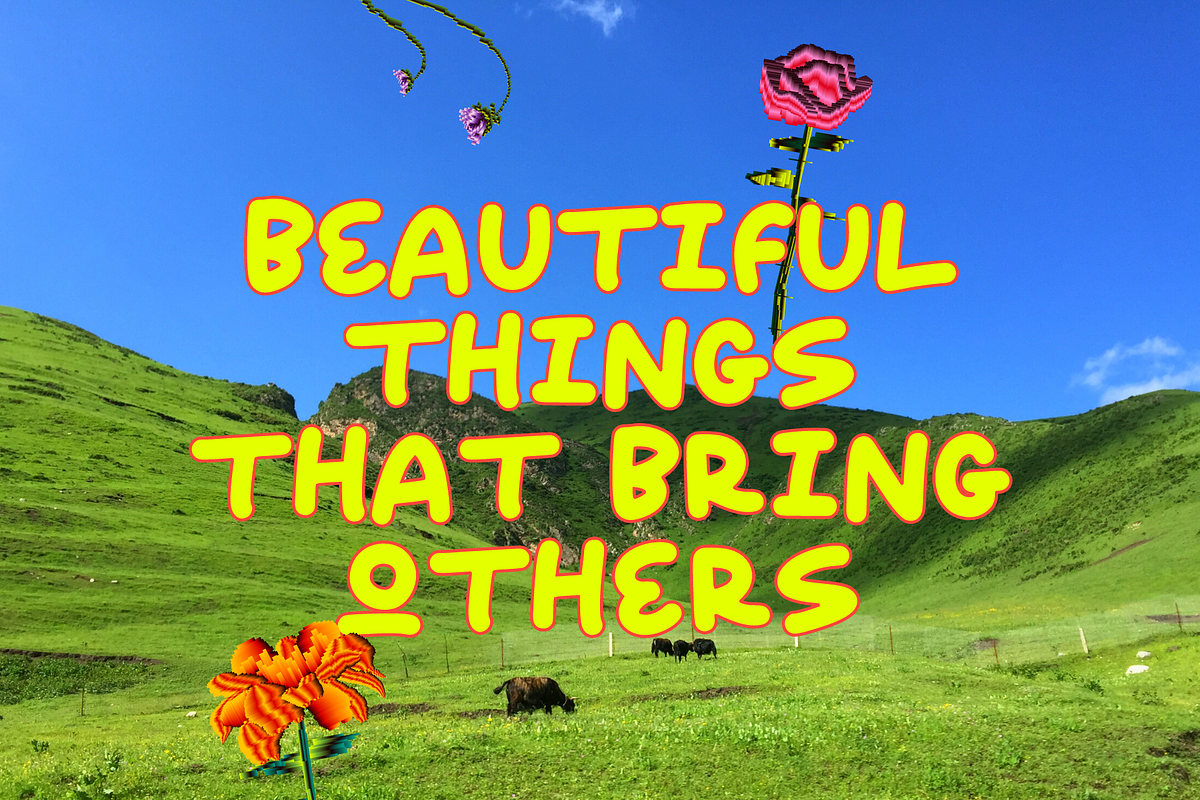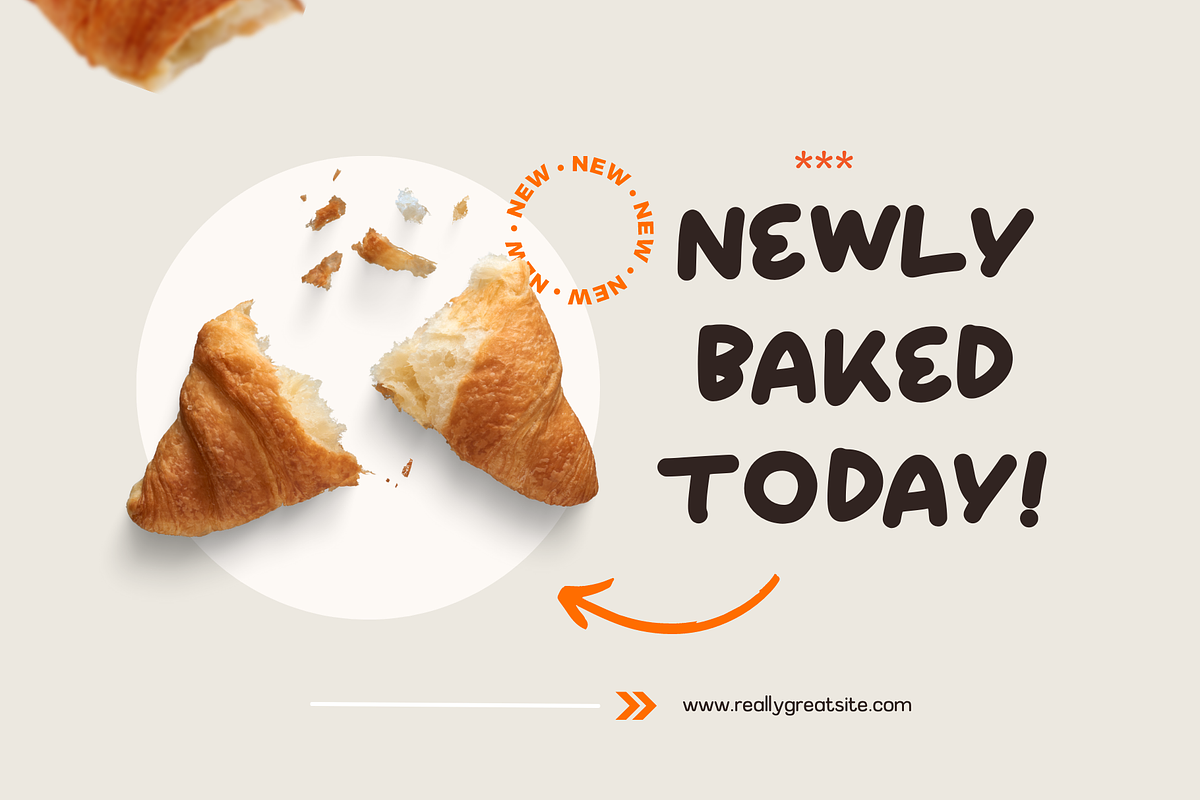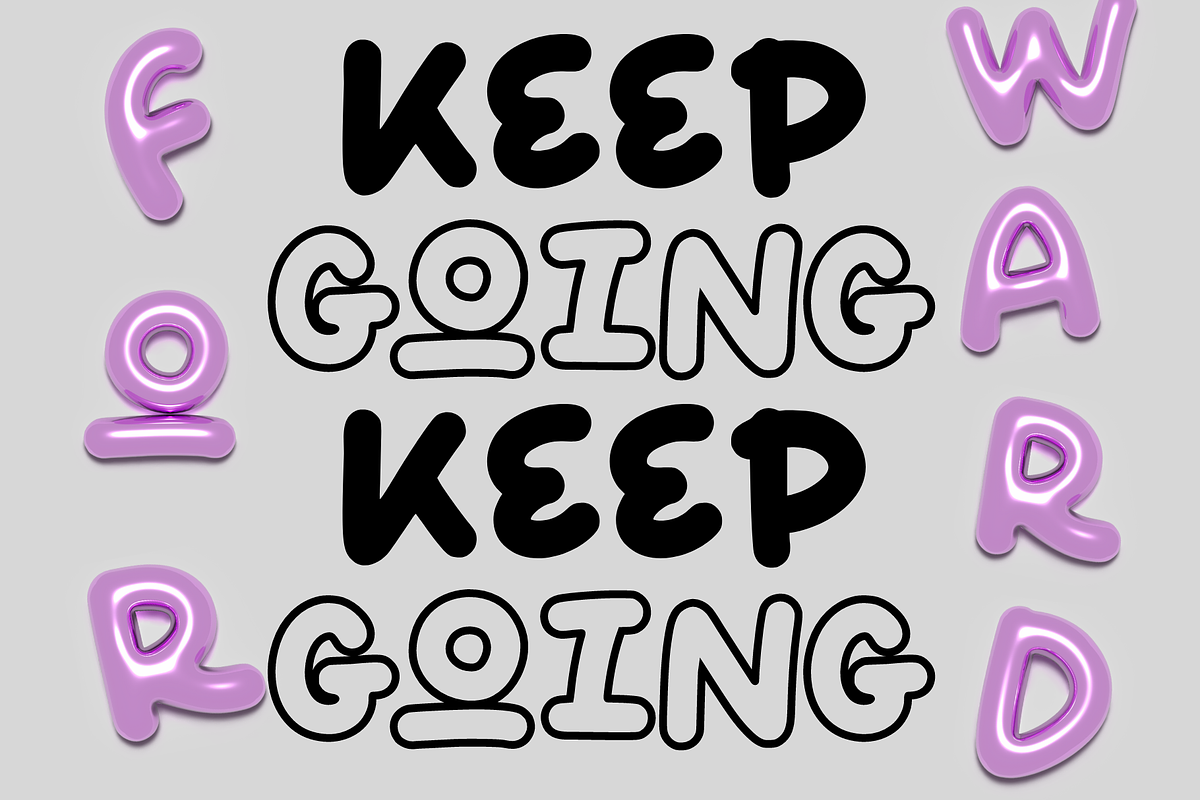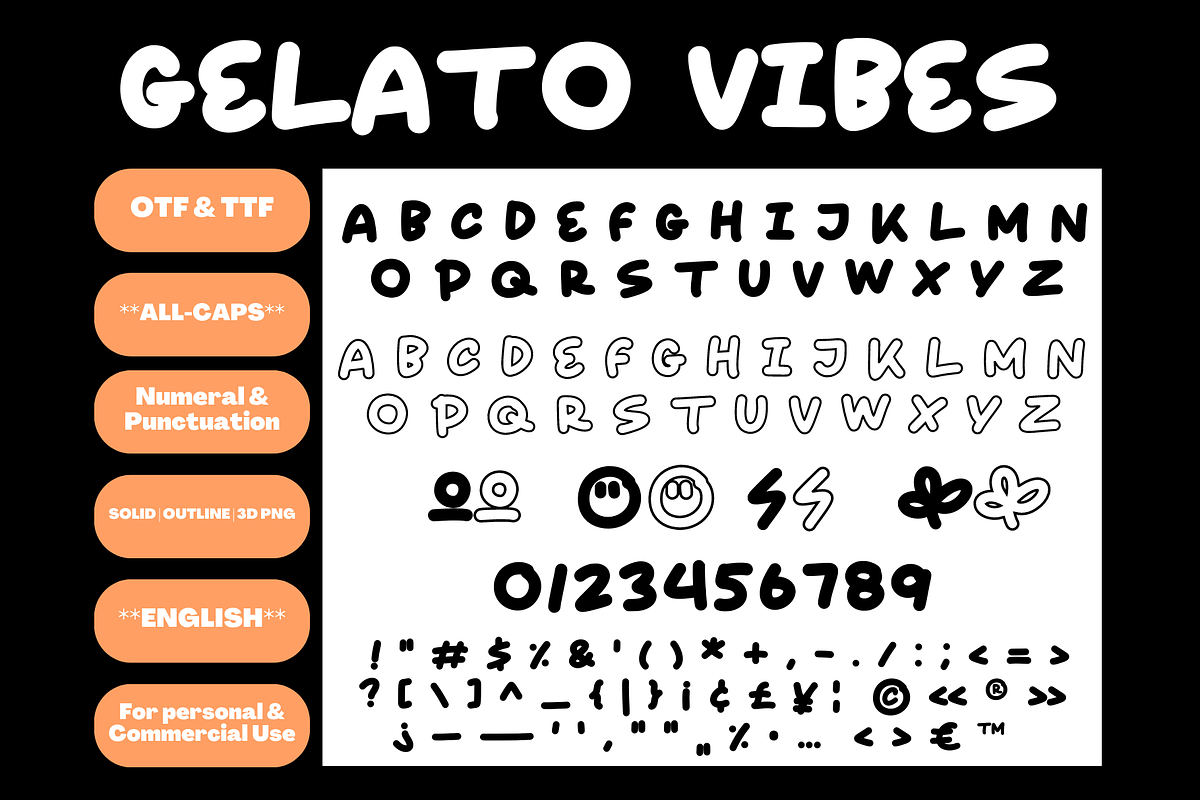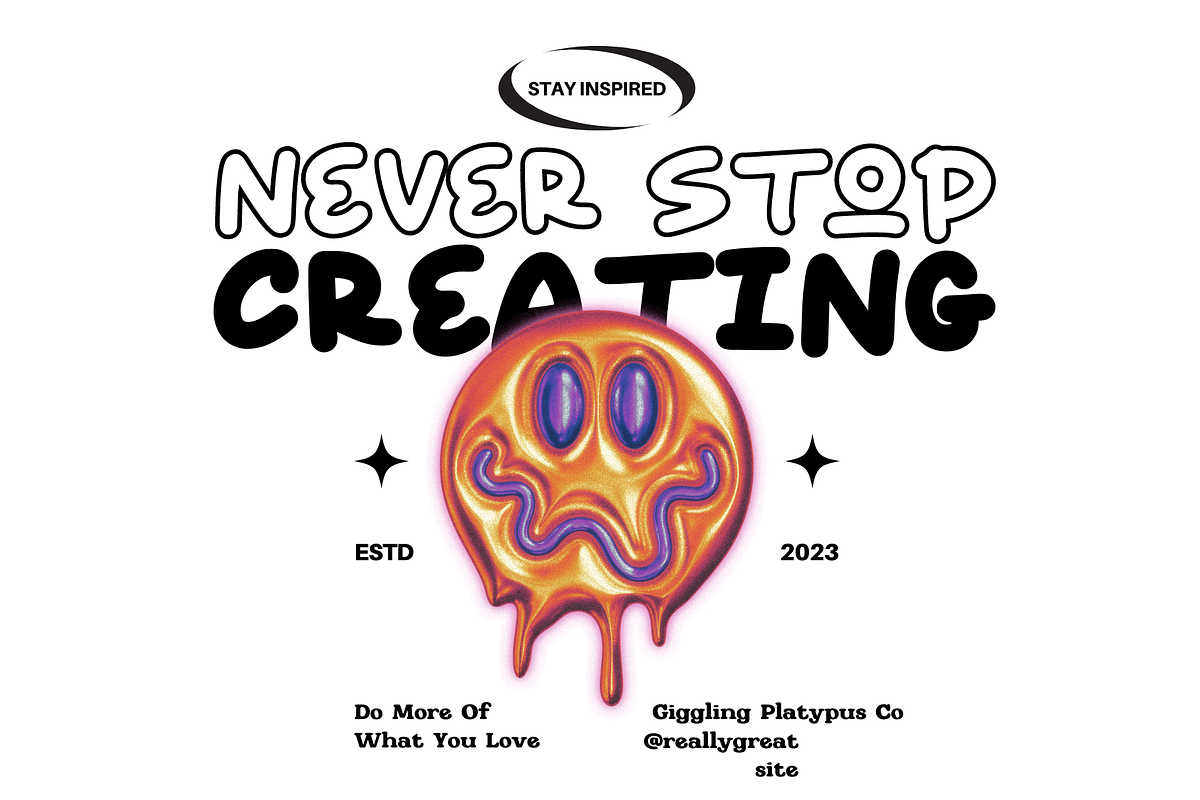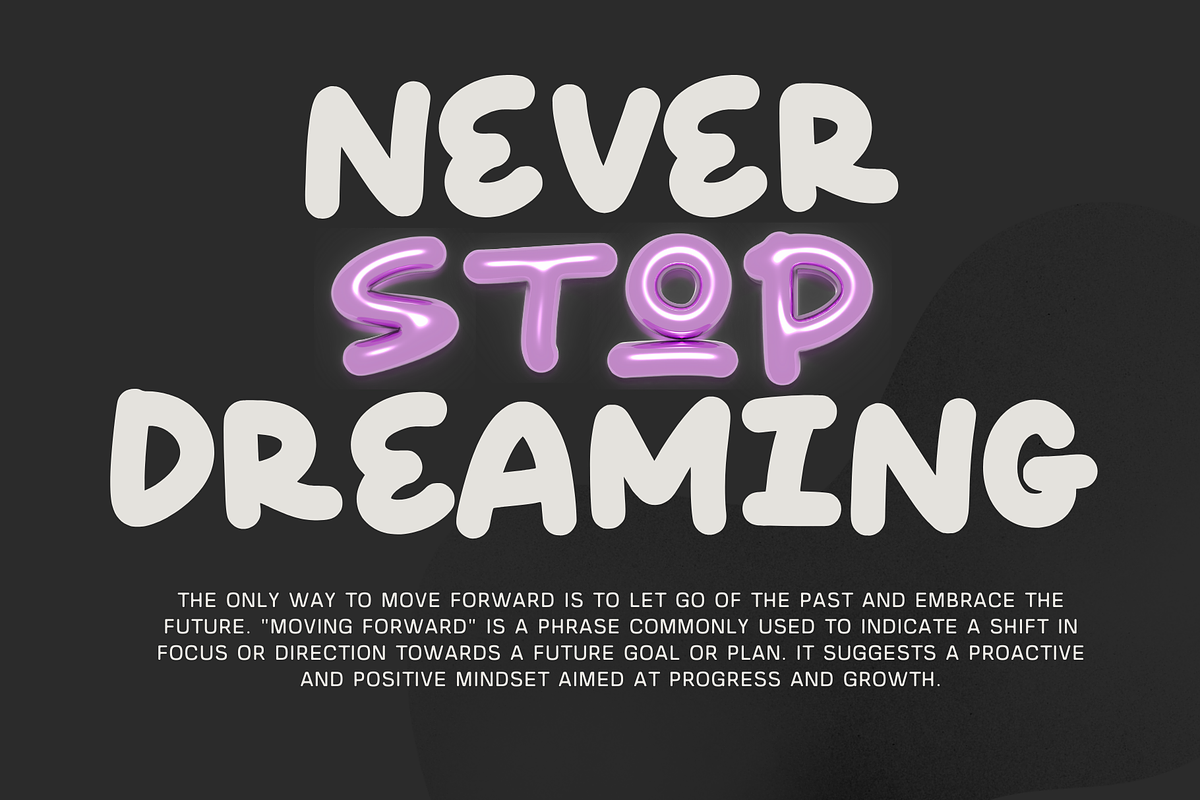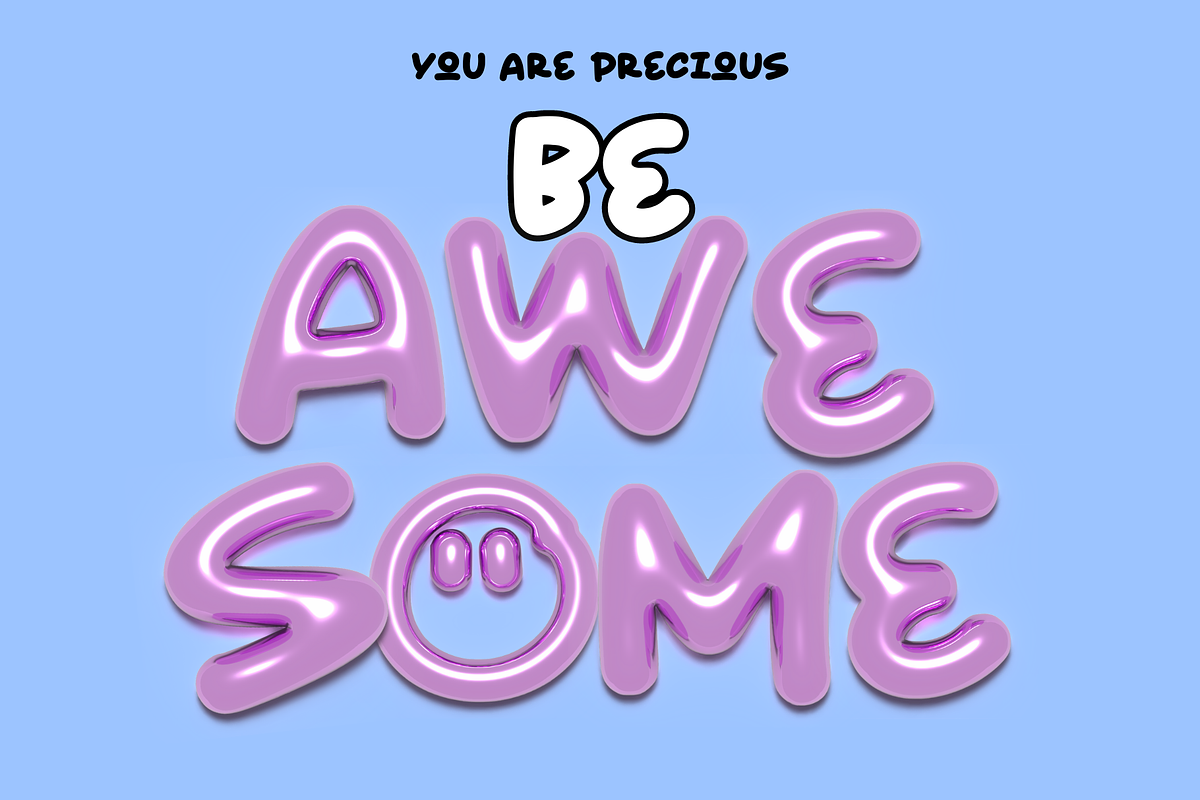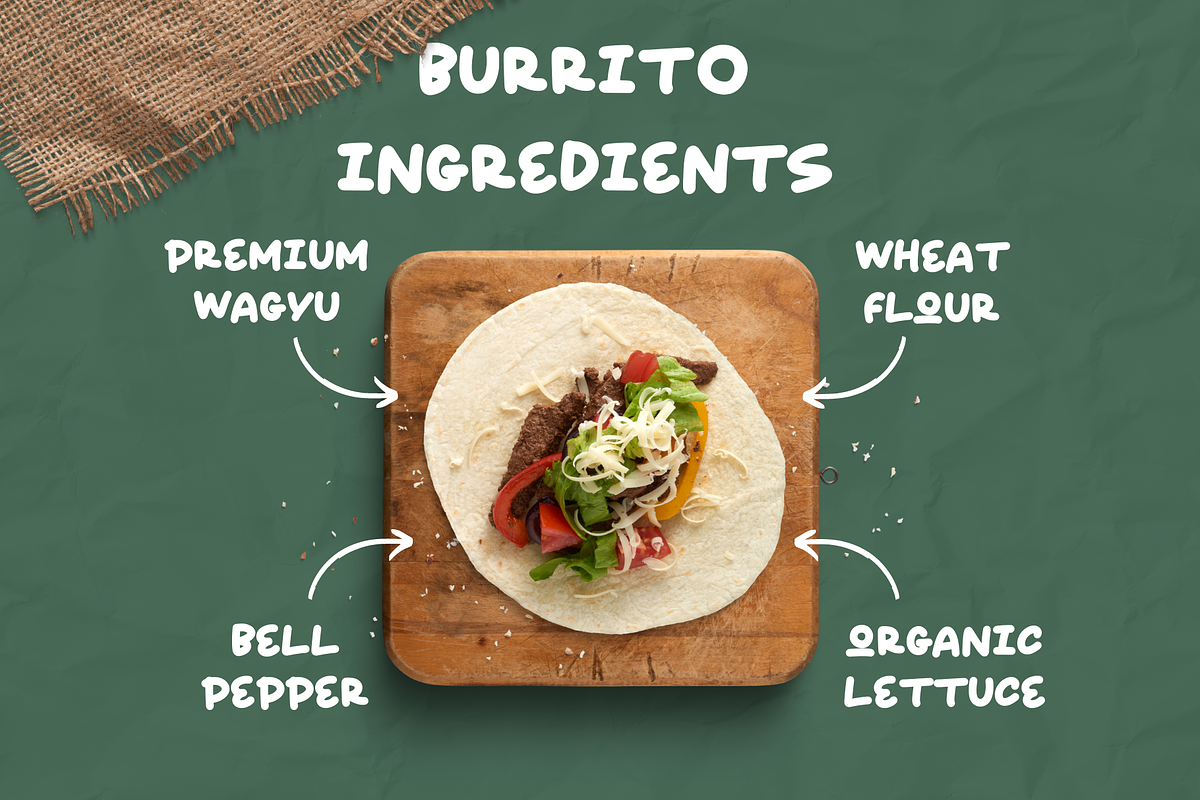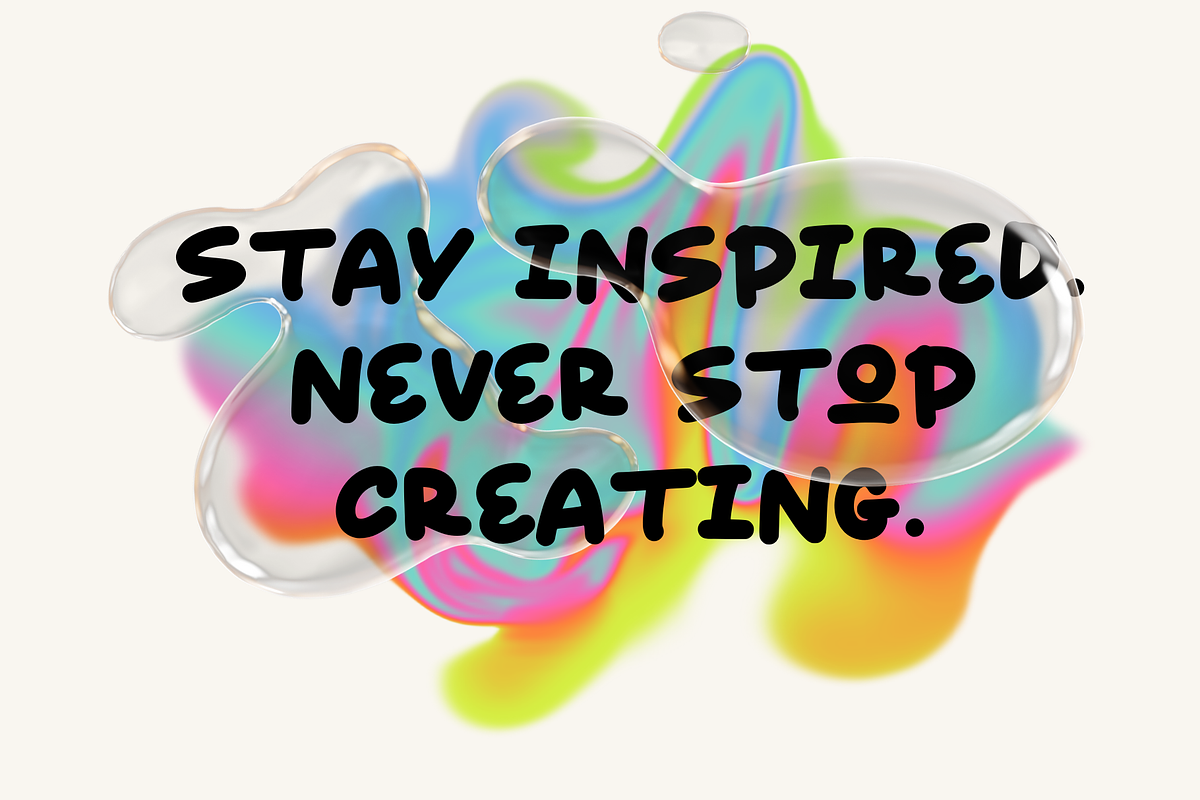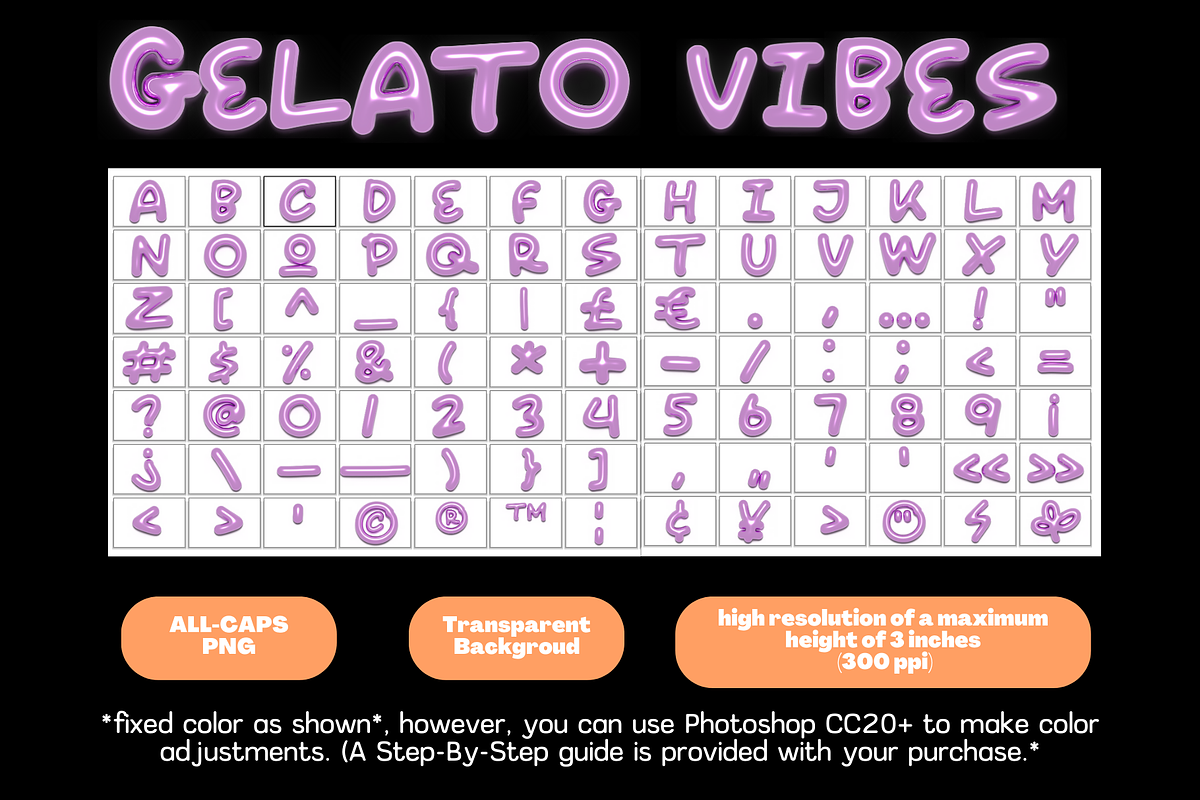
Gelato Vibes Handwritten Street Font
Gelato Vibes Font is a set of 3 versions of Handwritten fonts. It can be used as Handwritten Street Font, Y2K Bubble Font Bundle, 3D Metallic Chrome Font, PNG Bubble Font, Outline Handwriting Font, Balloon Y2K Font Bundle, Graffiti Font.
It includes solid, outline, and PNG 3D letters with transparent backgrounds versions.
Perfectly suitable for numerous use such as quotations, banners, logos, product packaging, titles, headers, Business cards, menu lists, and invitation cards!